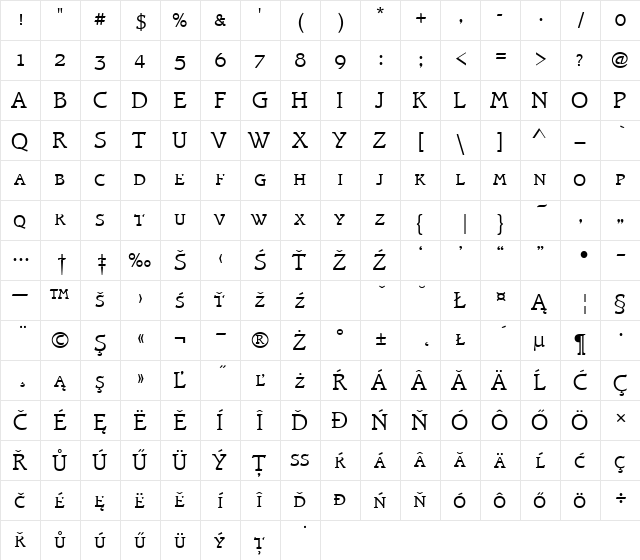
BramlSCTEELig Regular Font Preview
BramlSCTEELig Regular
Design Context for BramlSCTEELig Typeface
BramlSCTEELig is a composed and adaptable typeface that performs quietly and consistently across a wide range of design contexts.